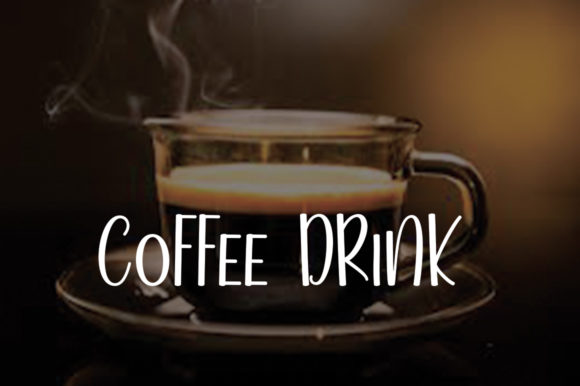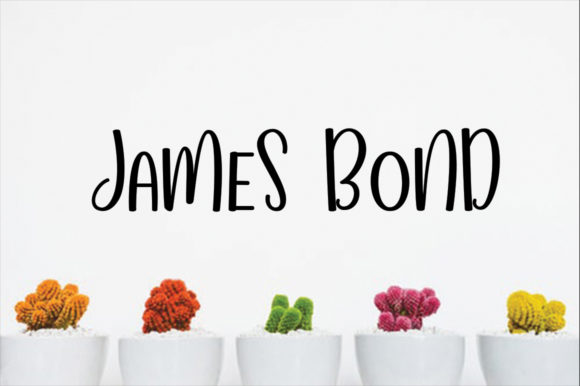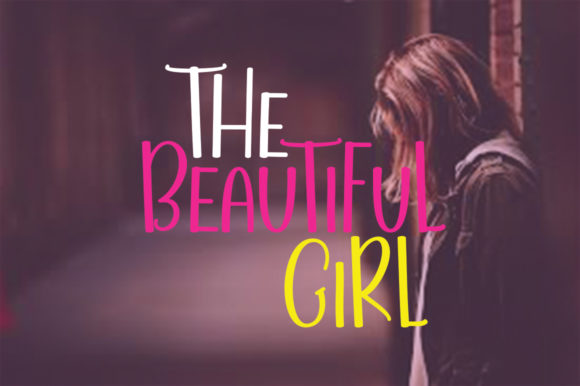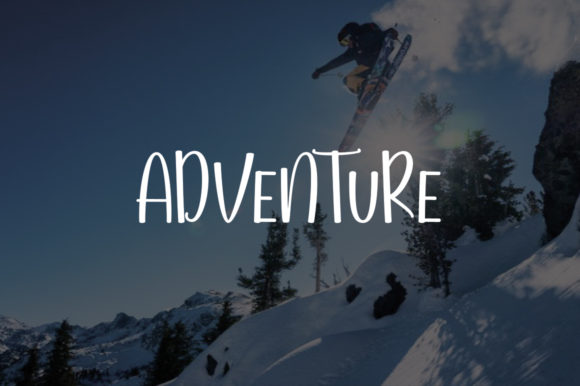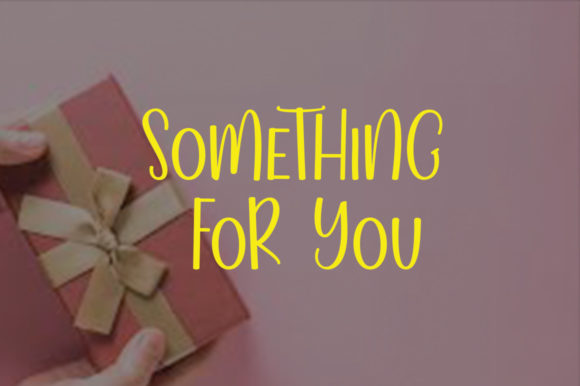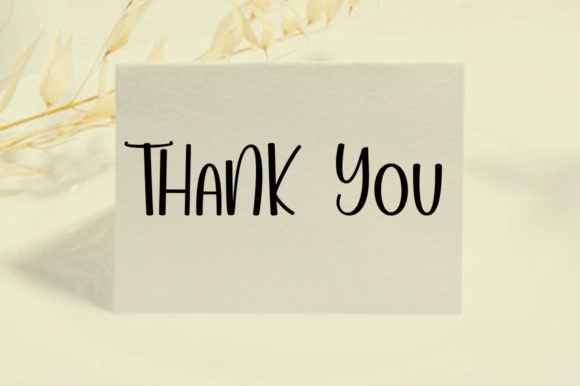
Happy New Year Font: Elevate Your Designs with a Cute and Quirky Display Font
As the clock strikes midnight on New Year’s Eve, we bid adieu to the old and welcome the new with open arms. What better way to usher in the new year than with a fresh and exciting font to add to your design arsenal? Look no further than the Happy New Year Font, a delightful and quirky display font that’s sure to bring a smile to your face and a touch of whimsy to your creations.
A Font for Every Occasion
At first glance, you might think that a font called “Happy New Year” is only suitable for, well, New Year’s-related designs. But think again! This font is incredibly versatile and can be used for a wide range of projects, from party invitations and social media graphics to branding and advertising materials. Its playful and upbeat vibe makes it an excellent choice for any design that needs a dash of fun and personality.
What Makes Happy New Year Font So Special?
So, what sets Happy New Year Font apart from other display fonts on the market? Here are just a few reasons why this font is an incredibly valuable asset to your font library:
- Unique Character Set: Happy New Year Font boasts a distinctive character set that’s full of personality. Each letter is carefully crafted to bring a sense of joy and playfulness to your designs.
- Highly Legible: Despite its quirky nature, this font is incredibly easy to read, making it perfect for use in a variety of contexts, from headlines to body copy.
- Scalable: Happy New Year Font is designed to look great at any size, from small captions to large display headers.
- Extensive Language Support: This font supports a wide range of languages, making it an excellent choice for designers who work with international clients or create content for a global audience.
How to Use Happy New Year Font in Your Designs
Now that you’re excited about adding Happy New Year Font to your collection, let’s explore some ways you can use it in your designs:
- Party Invitations: Create eye-catching invitations for birthday parties, graduations, or other celebrations using Happy New Year Font.
- Social Media Graphics: Add a pop of personality to your social media graphics, such as quote overlays, promotional offers, or event announcements.
- Branding and Packaging: Use Happy New Year Font to create unique and memorable branding elements, such as logos, business cards, or product labels.
- Advertising Materials: Bring a touch of whimsy to your ad campaigns with Happy New Year Font, perfect for headlines, slogans, or promotional copy.
Tips for Getting the Most Out of Happy New Year Font
To make the most of this delightful font, here are a few tips to keep in mind:
- Experiment with Colors: Happy New Year Font looks great in a variety of colors, so don’t be afraid to try out different palettes to find the perfect match for your design.
- Mix and Match Fonts: Combine Happy New Year Font with other fonts to create visually interesting and dynamic designs.
- Play with Size and Layout: Take advantage of the font’s scalability by experimenting with different sizes and layouts to add visual interest to your designs.
In conclusion, Happy New Year Font is a cute and quirky display font that’s sure to bring a smile to your face and a touch of personality to your designs. Its versatility, unique character set, and high legibility make it an incredibly valuable asset to your font library. Whether you’re a designer, crafter, or simply someone who loves to create, Happy New Year Font is a must-have for anyone looking to elevate their designs and add a dash of fun and whimsy to their projects.